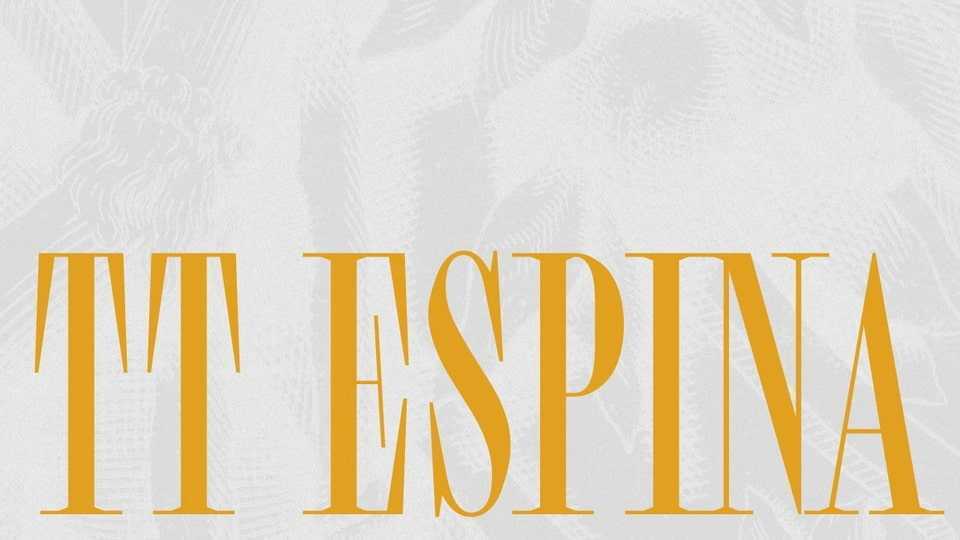
Download TT Espina font, a display antiqua with expressive serifs. TT Espina typeface is yet another proof that antiquas can be stylish and expressive display fonts suitable for modern projects.
Designer: TypeType Team